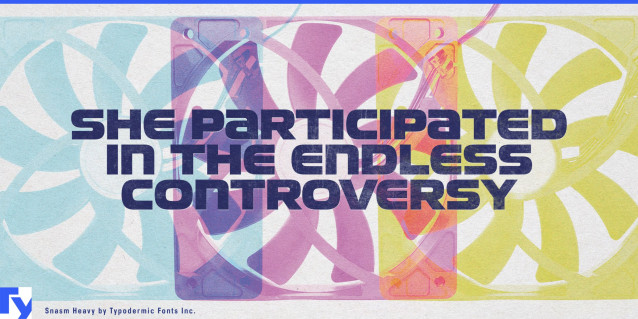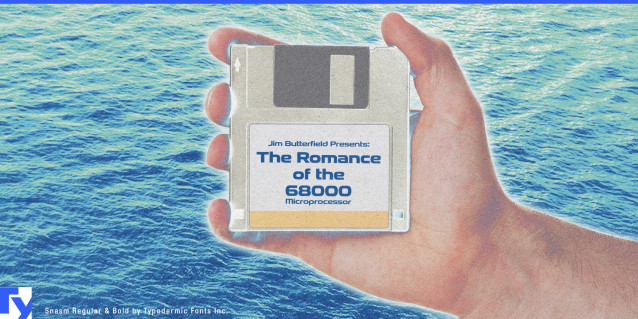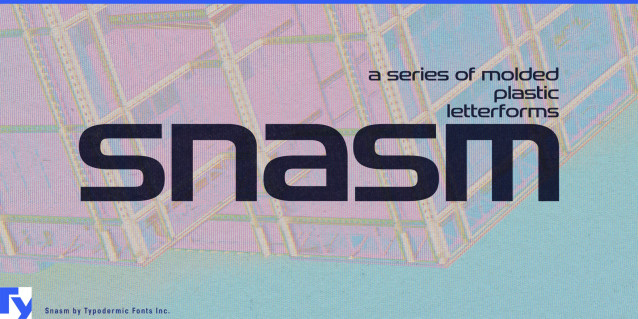
Snasm Font Family
Snasm channels the engineered precision and optimism of late-20th-century tech, translating it into a typeface that feels tactile, like molded lettering on a control panel. Its softened edges and measured curves suggest something manufactured to be touched, not just seen—bringing a sense of physicality to screen and print.
The range of weights lets you tailor its personality: light cuts deliver sleek, efficient headings for interfaces; heavy weights command attention in posters, packaging, and signage; obliques add just enough thrust for technical drama without losing legibility. Snasm works equally well in branding, editorial spreads, or any project that needs to blend clarity with a quietly assertive tone.
Though its DNA traces back to the digital optimism of the floppy-disk era, Snasm is no relic. Its shapes evoke the same industrial confidence found in hardware casings, early computing displays, and high-tech consumer goods—yet it’s been refined for today’s design demands. Use it to give your work the crisp, authoritative voice of a tool built for performance, with just enough retro-tech warmth to keep it human.